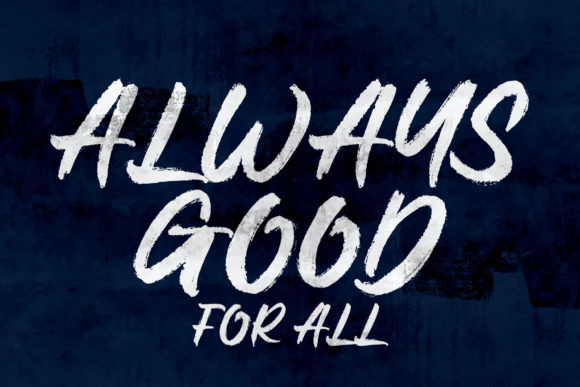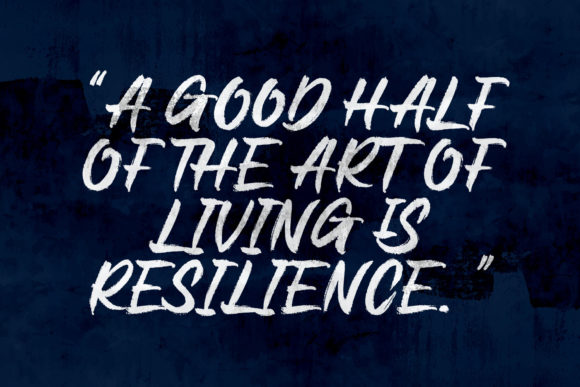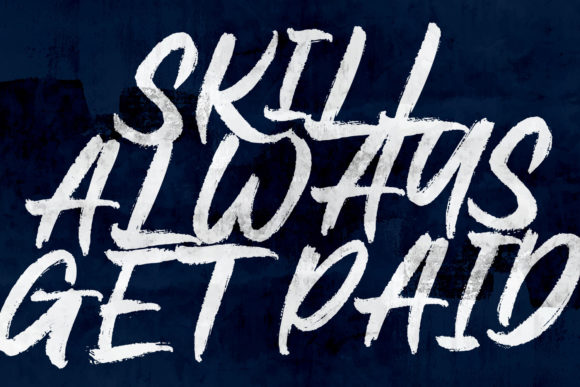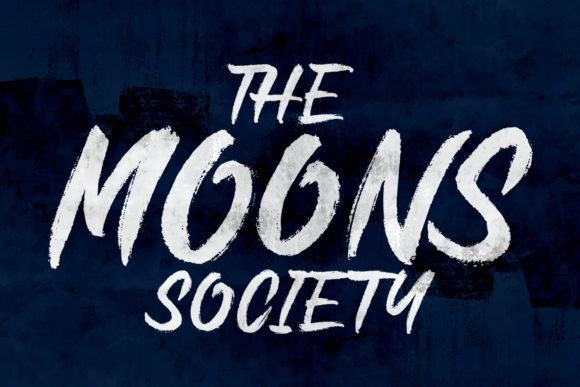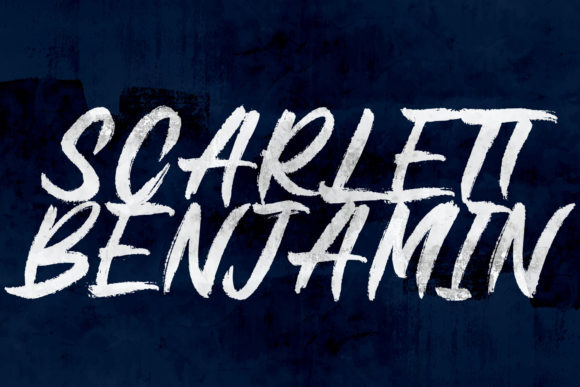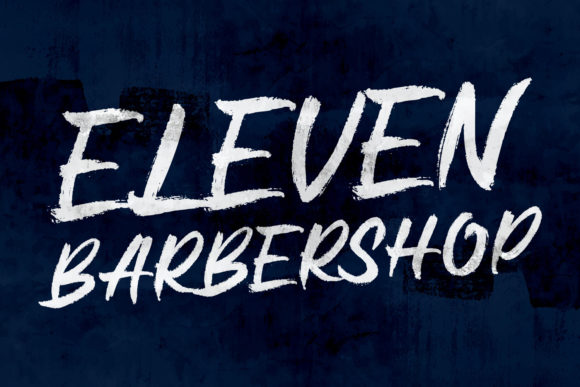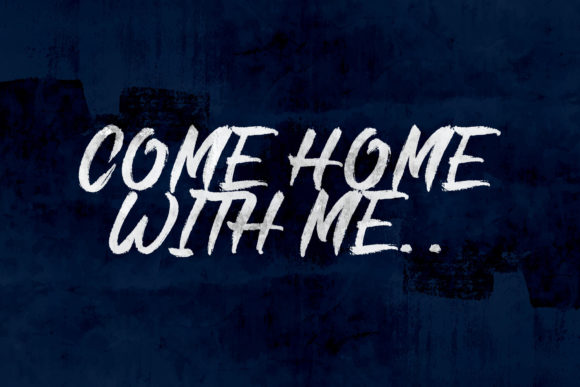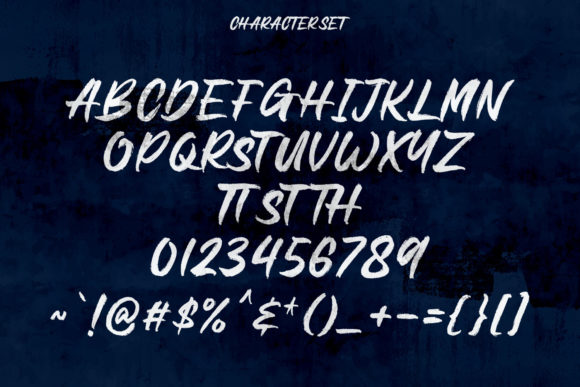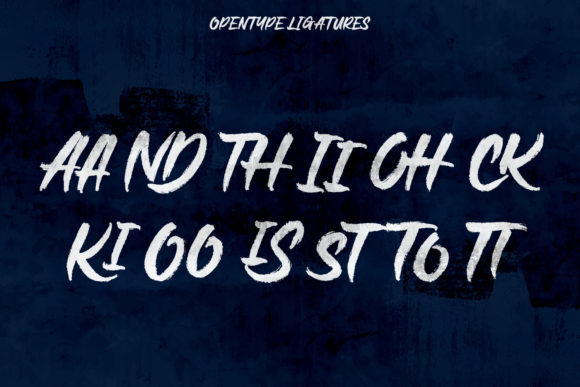
Grind Slide Font
About Grind Slide Font
Grind Slide is an expressive handwritten font perfect for logo design, social media posts, movie titles, books titles, and many more! Add it to any of your creative designs, and it will make them stunning and outstanding!